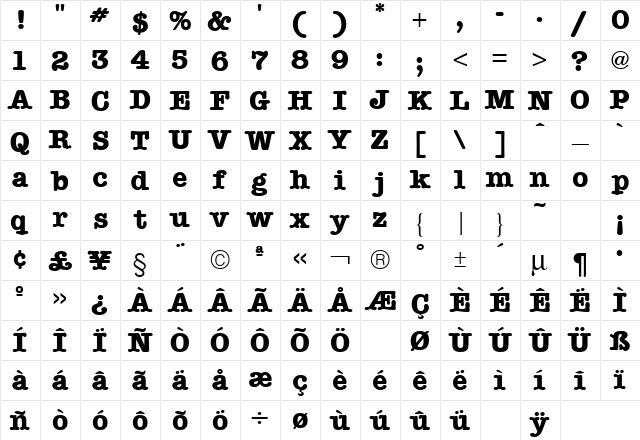
American Type Bold
Design Context for American Type Typeface
American Type takes a measured approach to typography — its balanced proportions and neutral character make it a reliable workhorse for both digital and print work. The heavy weight commands attention and anchors typographic hierarchies.